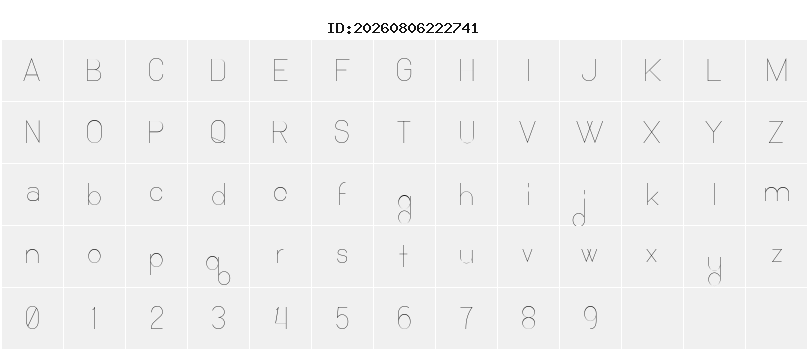
About Ocho Siete.ttf
Ocho Siete.ttf is a modern, elegant sans-serif font designed for ultimate readability and visual harmony. Perfect for branding, headlines, web design, and print materials.